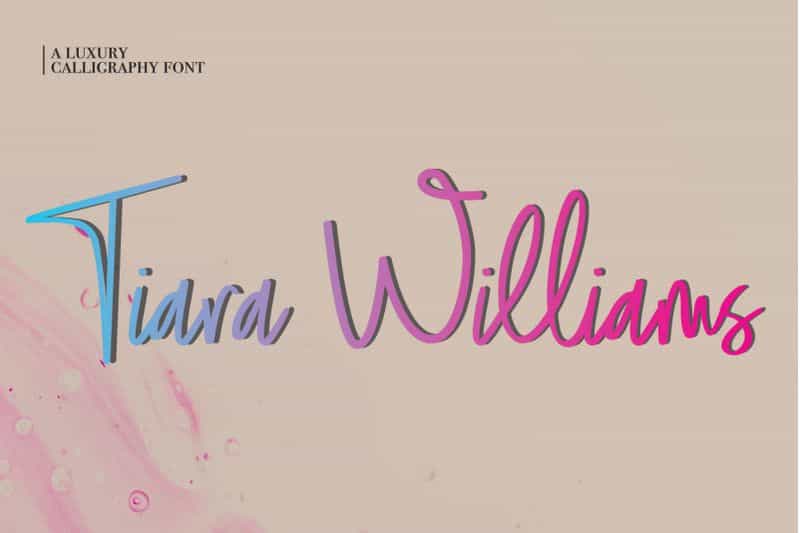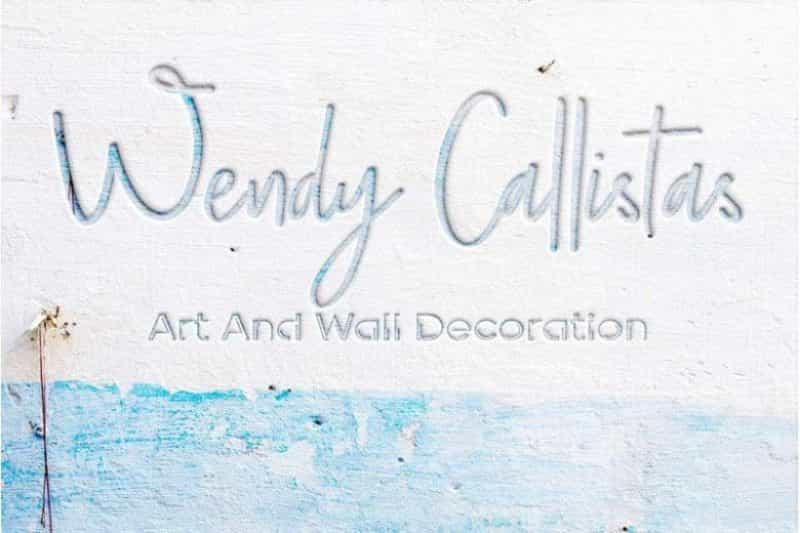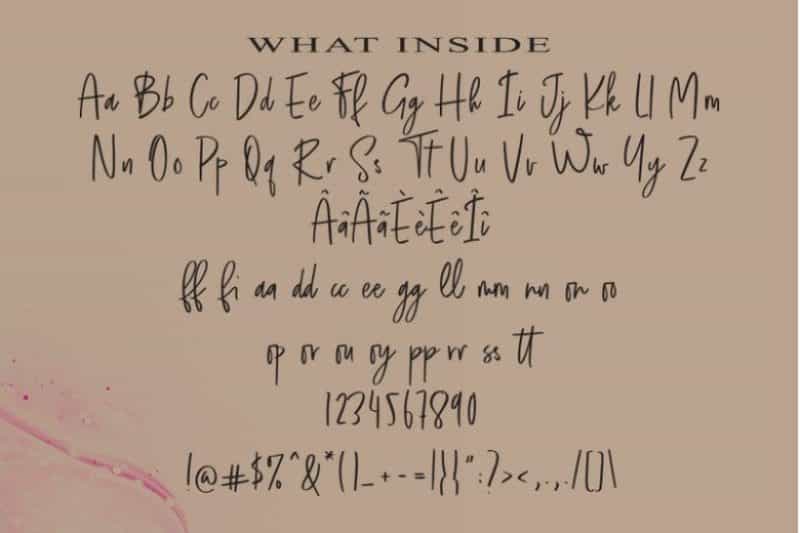
Tiara Williams is a luxury calligraphy script font with relaxed style and gives the feeling of luxury. Ideal for branding and logo designs, can also be used for Product labeling, Title of your article or book, letterheads, and much more.